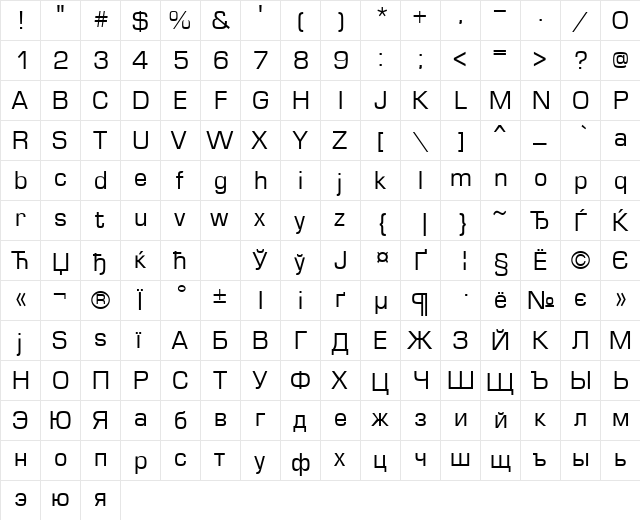
Europe Normal
Design Context for Europe Typeface
Europe takes a measured approach to typography — its balanced proportions and neutral character make it a reliable workhorse for both digital and print work.